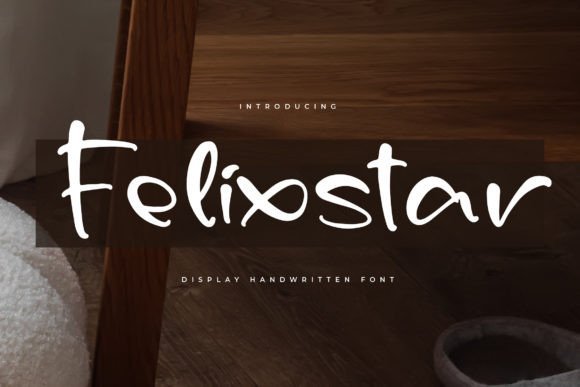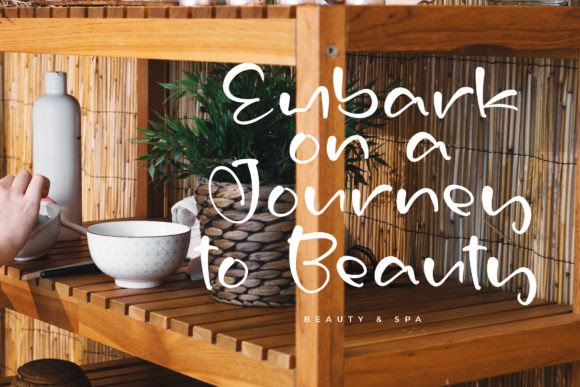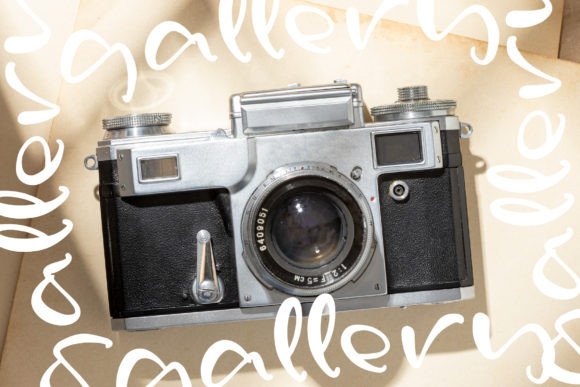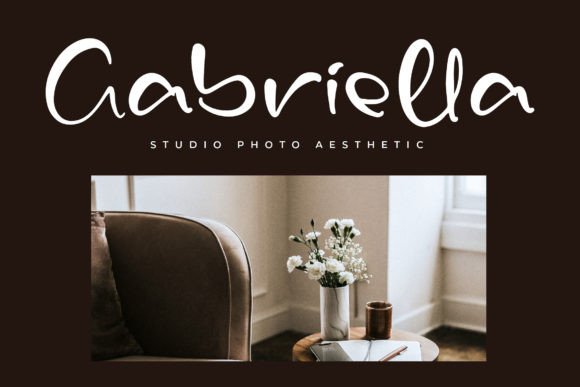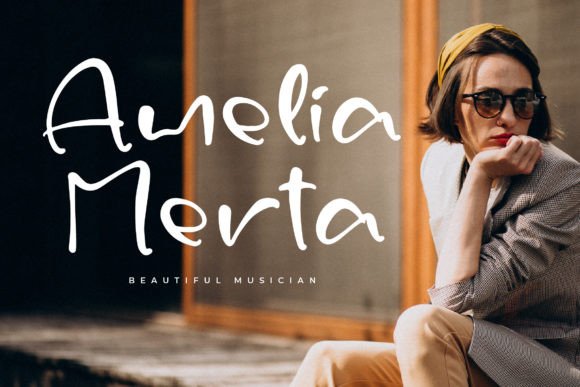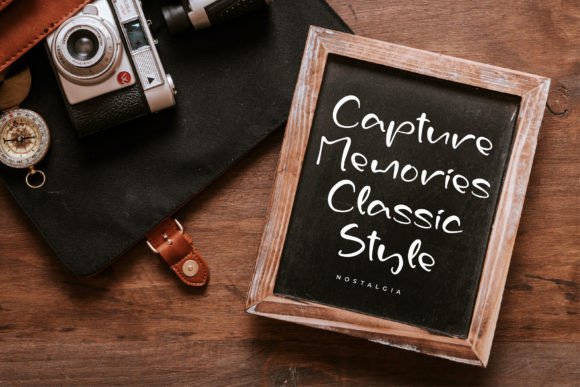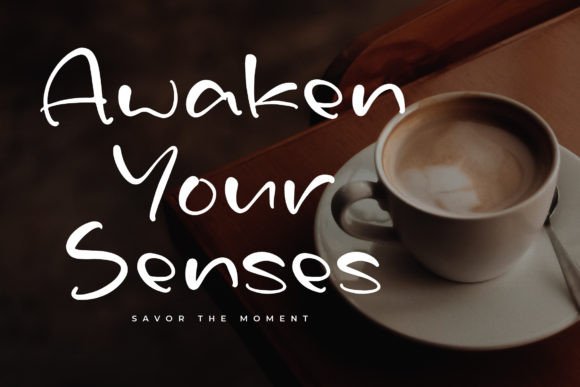
The Birth of a New Design Era: Introducing the Felixstar Font
Have you ever sat down with a blank sheet of paper and a pencil, waiting for the perfect idea to strike? For designers, those moments are what make the creative process so magical. It’s the spark that ignites a new project, a new passion, and a new way of thinking. And for those who have been waiting for the perfect tool to bring their vision to life, the wait is over.
Meet the Felixstar Font, a stunning display handwritten font from Integritype Studio. This beautiful font is designed to elevate any project, from logos and branding to homewares and product packaging. Whether you’re looking to add a touch of luxury to your designs or create a statement piece, the Felixstar Font is the perfect addition to your creative arsenal.
As a designer, you know the value of having the right tools at your disposal. The Felixstar Font is a game-changer, offering a level of sophistication and elegance that’s hard to find in other fonts. With its versatility and premium feel, it’s the perfect choice for any project that requires a touch of class and sophistication.
Felixstar Font Key Features
- Unique Characteristics: This font features a unique blend of modern and vintage elements, with a subtle flair that adds sophistication and elegance to any text.
Felixstar Font Review
Felixstar Font is a unique and quirky addition to any design project ✨. I appreciate its eclectic mix of modern and vintage elements, which can add a touch of personality to even the most mundane designs. The font is highly versatile and can be used in a wide range of applications, from logos and branding to body text and headlines.
One of the standout features of Felixstar Font is its extensive character set, which includes a wide range of glyphs and ligatures. This makes it an excellent choice for designers who need to work with complex languages or want to create custom typography ✨.
- ⚠️ The font can be overwhelming if used in large quantities, so it’s essential to use it sparingly to avoid visual fatigue.
- ⚠️ Some characters may not render correctly on certain platforms or devices, which can be a concern for designers who need to ensure cross-browser compatibility.
Overall, I think Felixstar Font is a great addition to any designer’s toolkit. While it may have some limitations, its unique style and versatility make it a valuable resource for designers who want to add a little extra flair to their projects ✨.